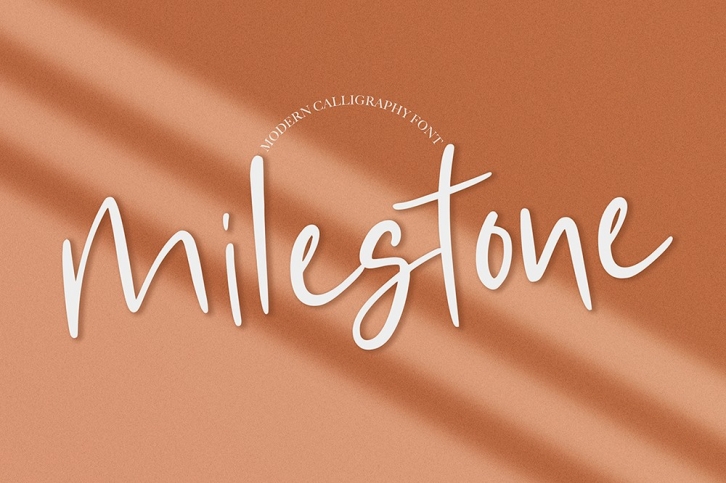
Milestone is a beautiful font that was designed by Artifex Create. It's a great choice for designers and creatives who need such a font. It was released on December 25, 2019 and the file size is 2.41 MB. Milestone may give a more youthful, expressive and casual look to your project. It is a very beautiful, refined, elegant, and high-quality font.